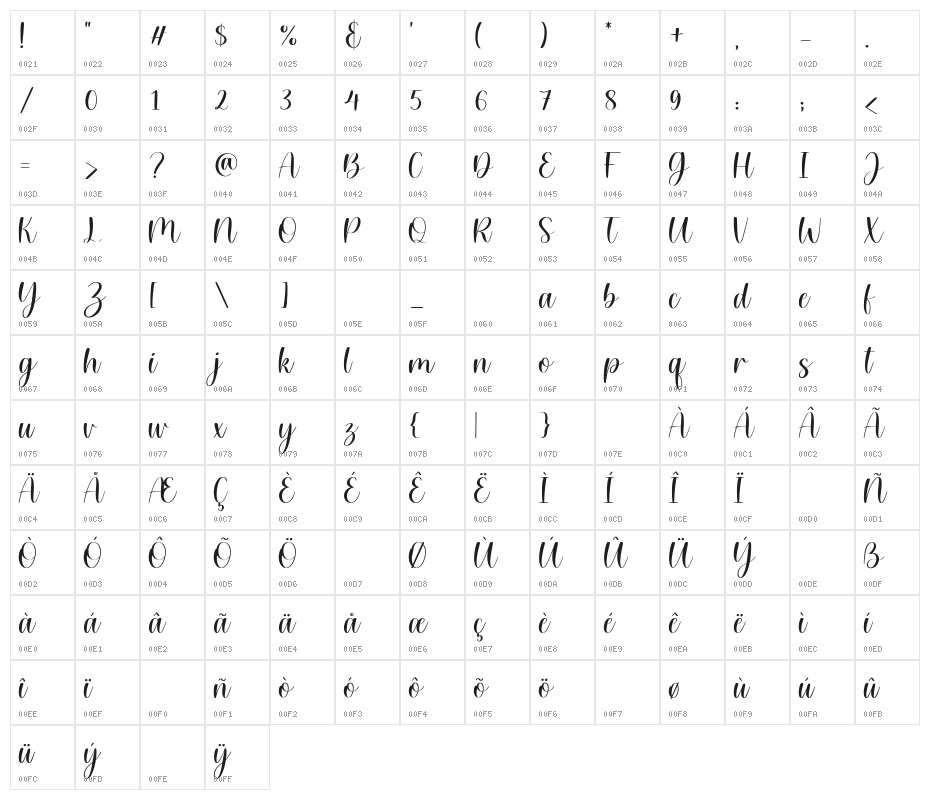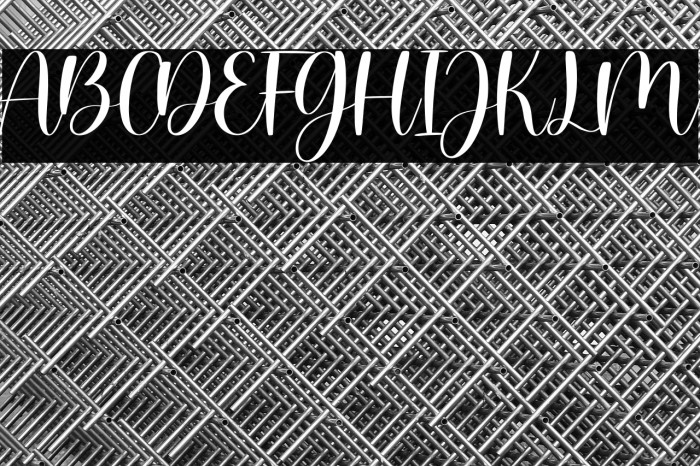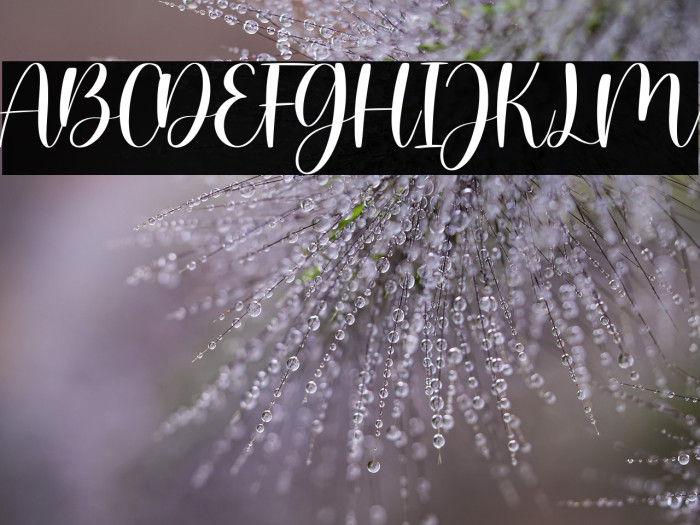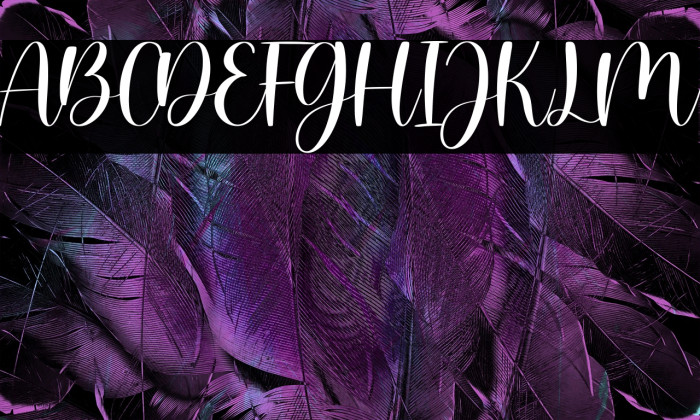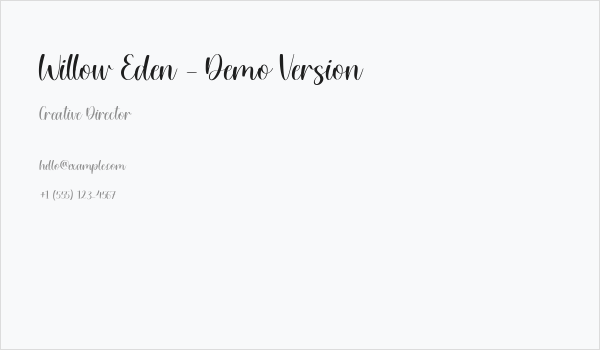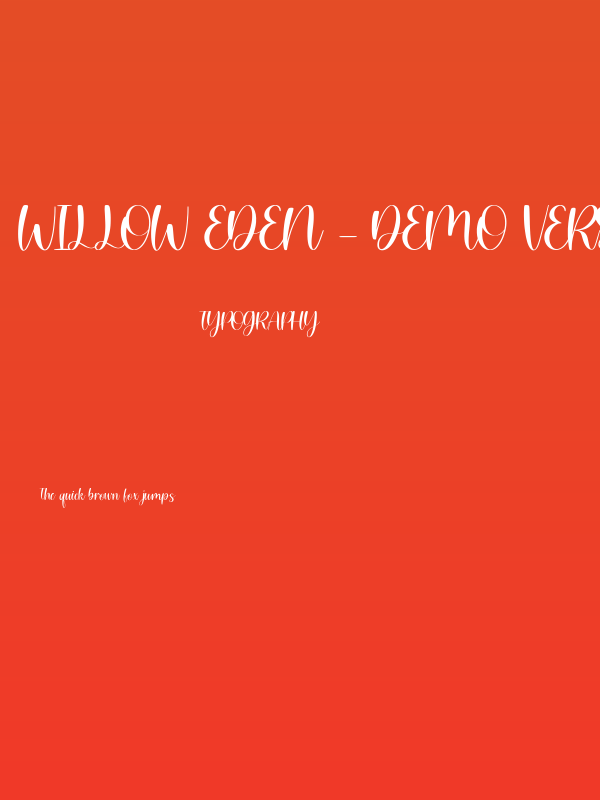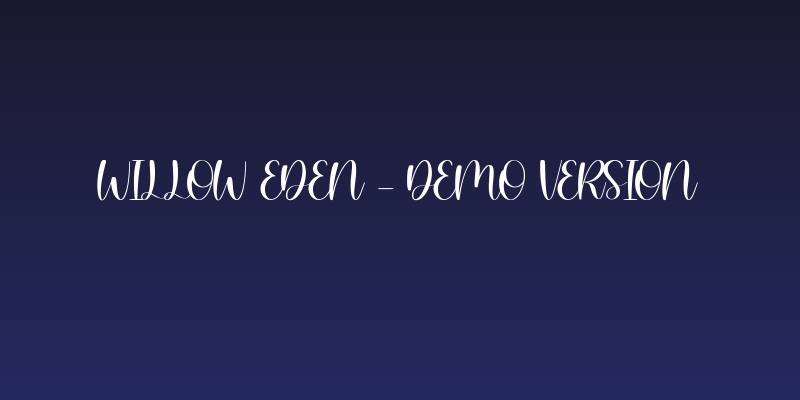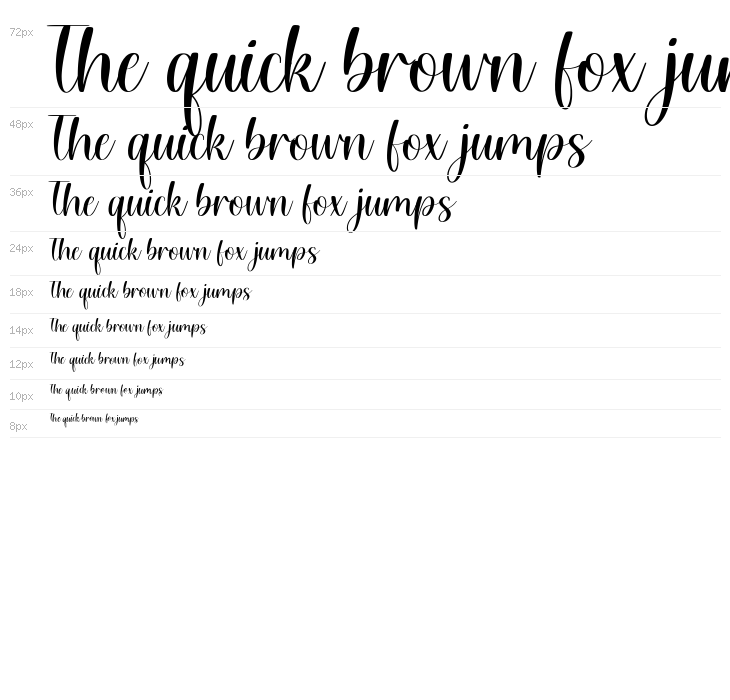
Willow Eden - Demo Version Font
Willow Eden - Demo Version Description
This font exudes a graceful and elegant script style, characterized by its flowing, interconnected letterforms. The uppercase letters are tall and slender, with sweeping curves that give a sense of movement and fluidity. The lowercase letters maintain a consistent rhythm, with loops and swashes that enhance the font's decorative appeal. The numerals are bold and clear, ensuring readability while maintaining the overall aesthetic. Special characters are thoughtfully designed to complement the letterforms, adding versatility to the font's use. This script font is perfect for projects that require a touch of sophistication and charm.